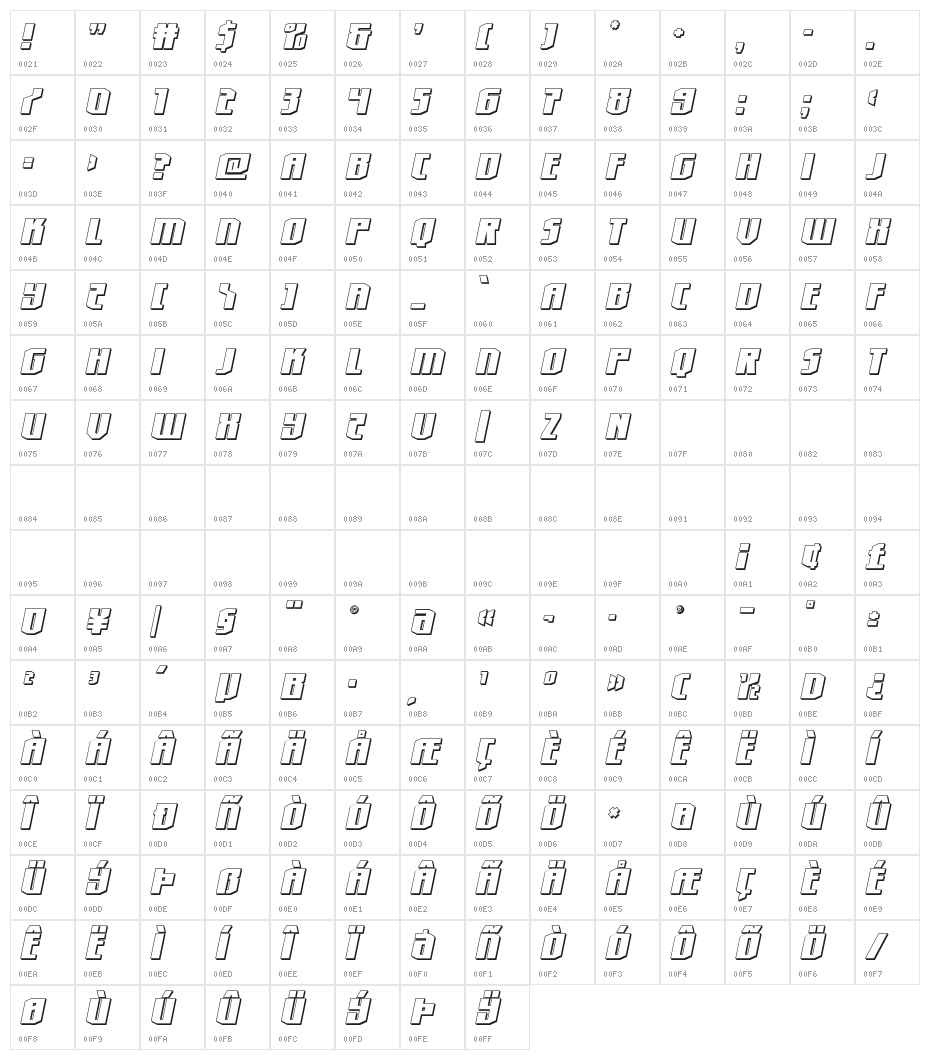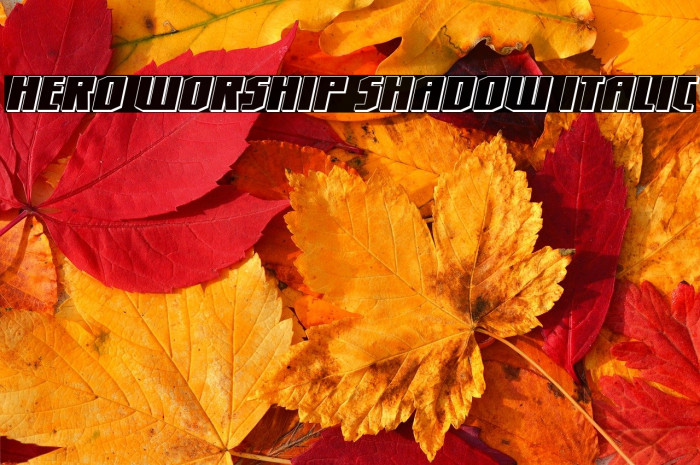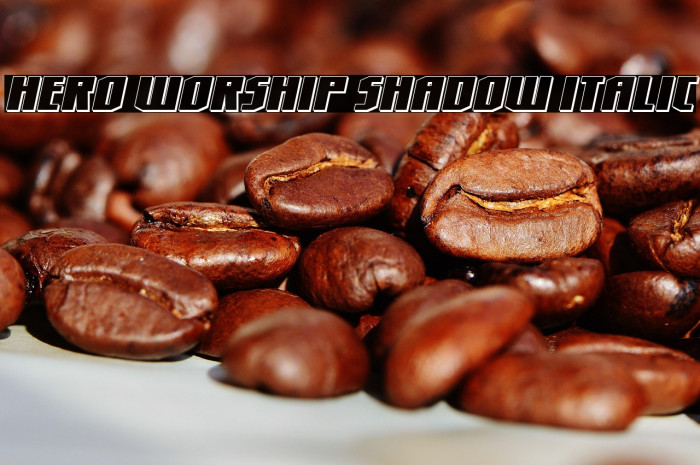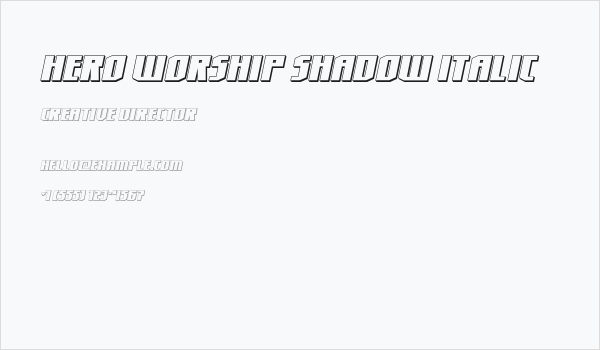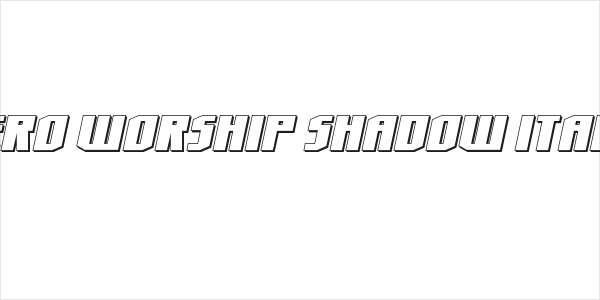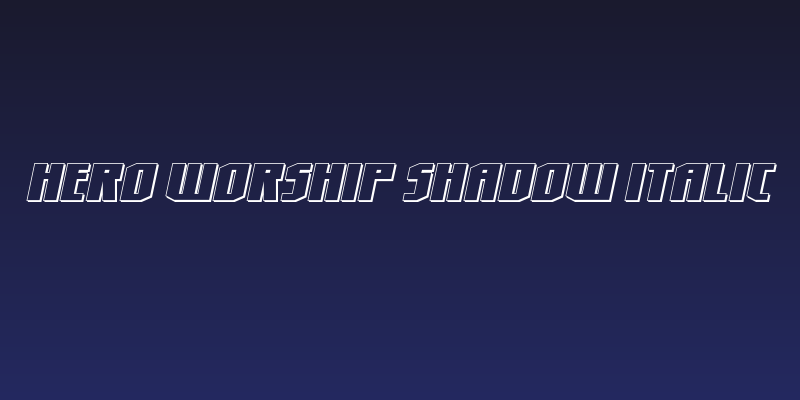
Hero Worship Shadow Italic Font
Hero Worship Shadow Italic Description
This font features a bold, dynamic style with a distinct shadow effect that gives it a three-dimensional appearance. The characters are angular and geometric, with a slight italic slant that adds a sense of motion and energy. The uppercase letters are particularly striking, with strong lines and sharp edges. The numbers and special characters maintain the same bold and shadowed aesthetic, ensuring consistency across all glyphs. This font is ideal for making a strong visual impact, suitable for projects that require a modern and edgy look.
| Proposed Projects | Ideal for sports branding, video game titles, posters, and dynamic logo designs. |